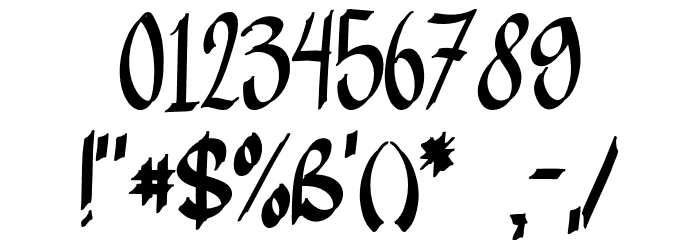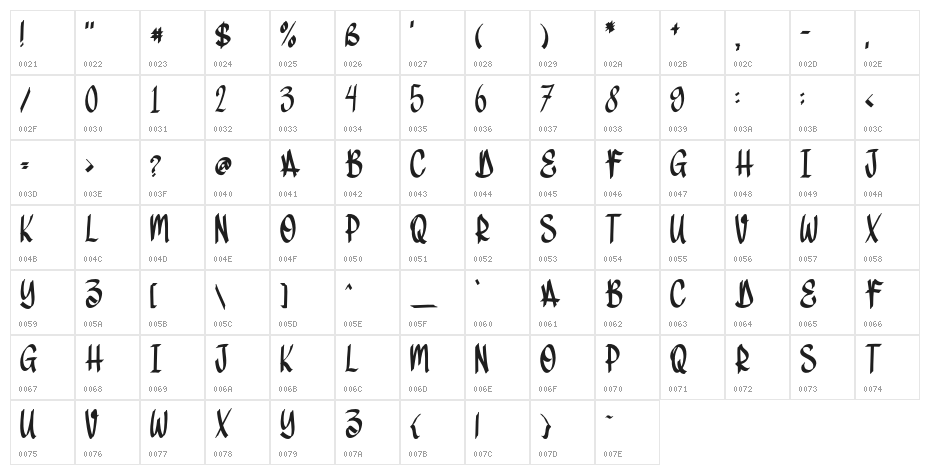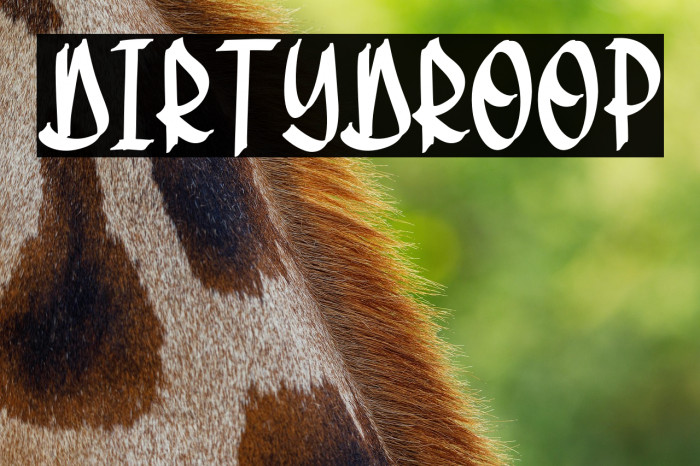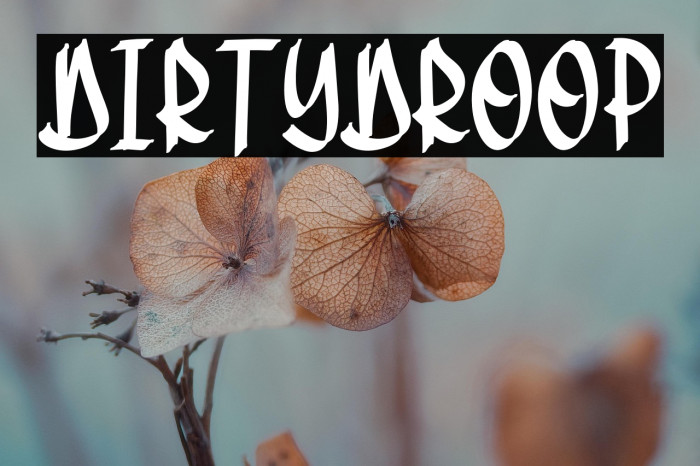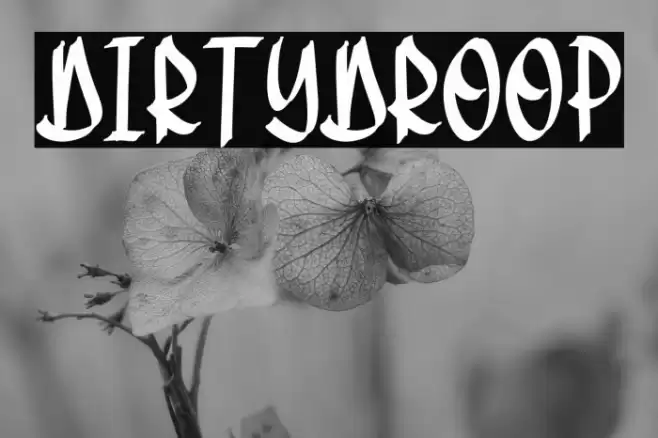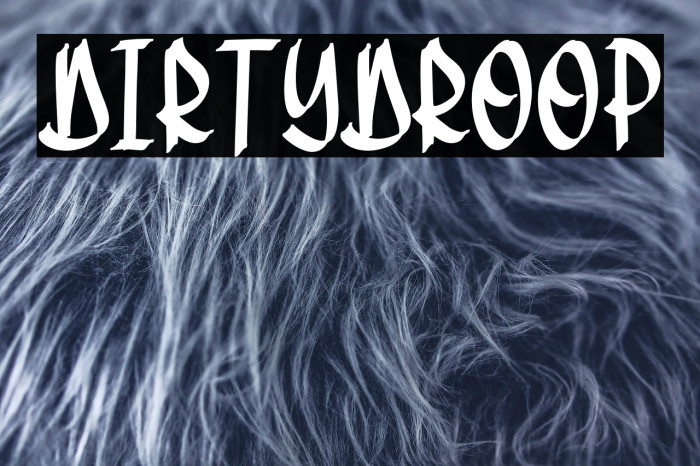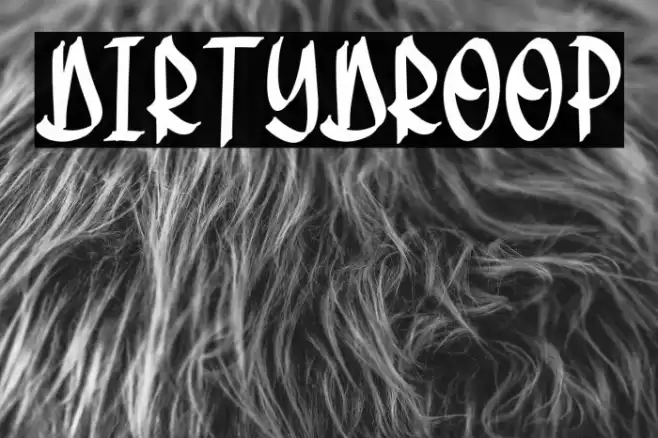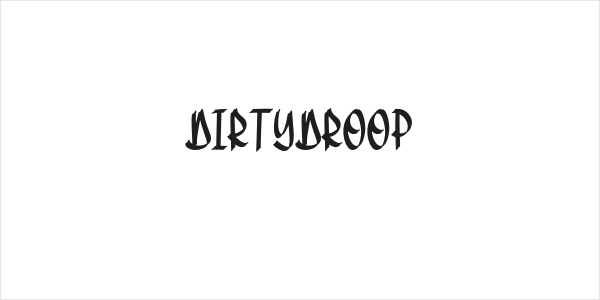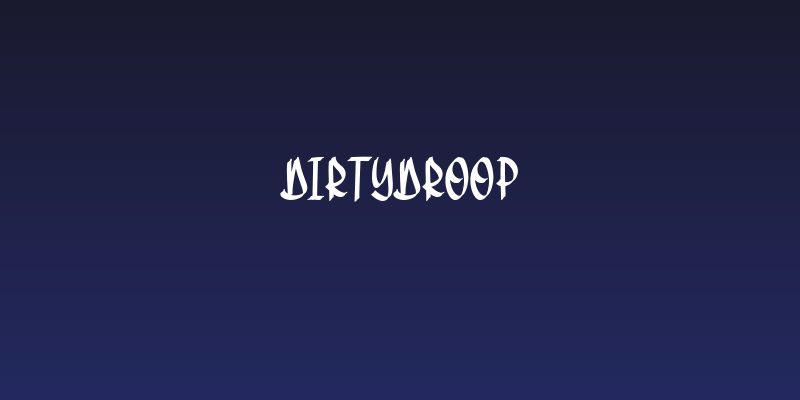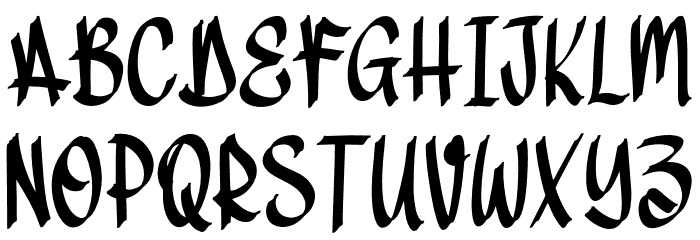
DirtyDroop Font
DirtyDroop Description
This font features a bold, expressive style with a hand-drawn appearance. The characters have a playful, dynamic quality, with exaggerated curves and angles that give them a sense of movement. The uppercase and lowercase letters maintain a consistent style, with a slightly irregular baseline that adds to the casual, artistic feel. The numbers and special characters are equally bold and maintain the same energetic style, making them stand out. This font is ideal for projects that require a lively and informal touch, such as posters, invitations, or branding for creative industries.
| Proposed Projects | Ideal for posters, invitations, branding for creative industries, and any project needing a lively touch. |